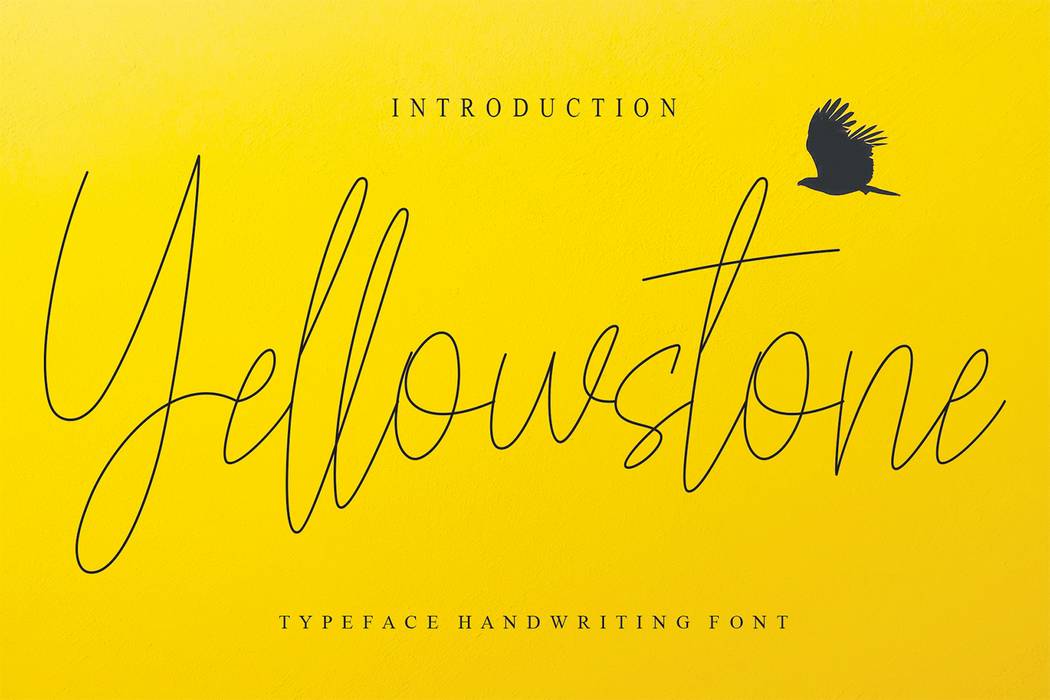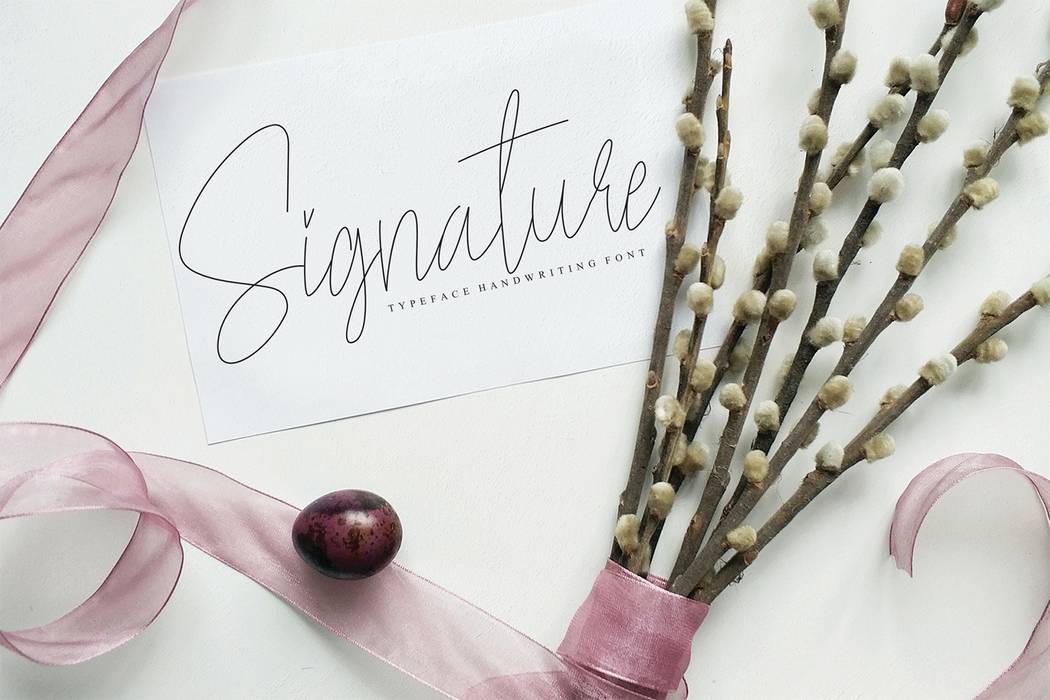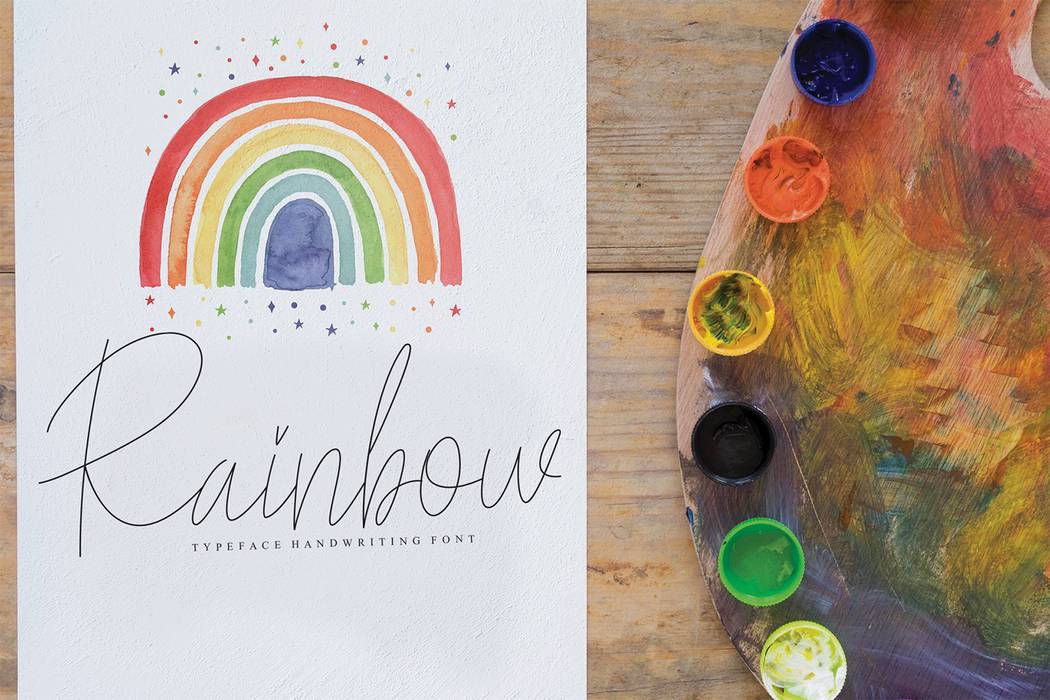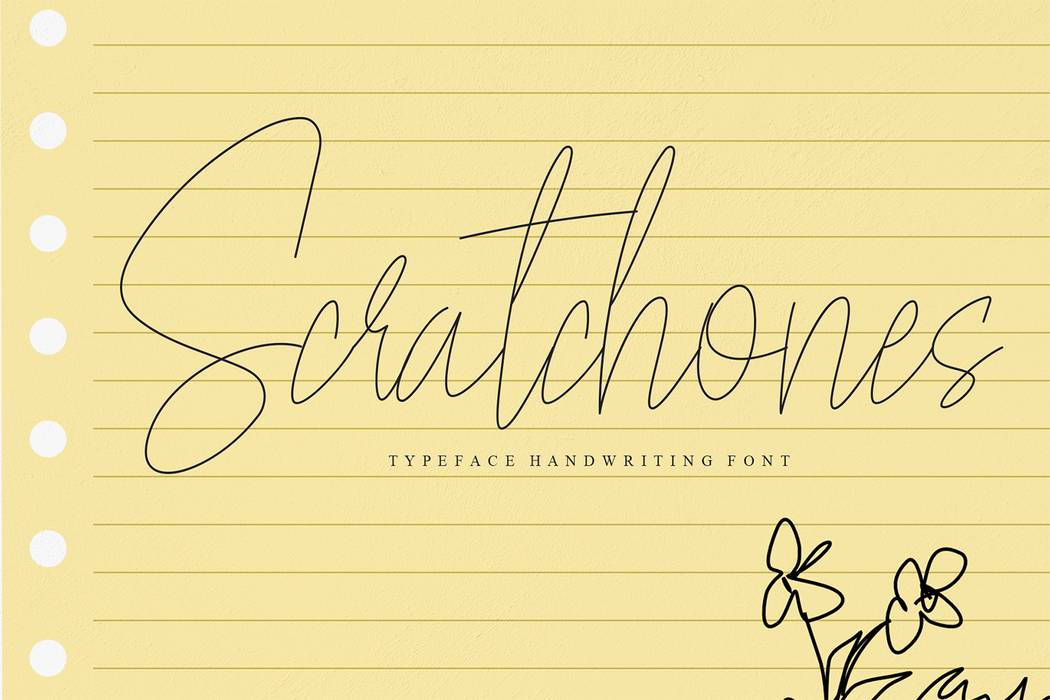
Yellowstone is a delicate, ultra-light script font with elegant, flowing lines that mimic natural handwriting. Its tall, narrow letterforms and fine strokes give it a sophisticated, airy feel, making it perfect for invitations, branding, and designs that seek a graceful, personal touch. This font works beautifully in contexts where a refined, artistic look is desired without overpowering the overall design.
Yellowstone Font
About Yellowstone Font